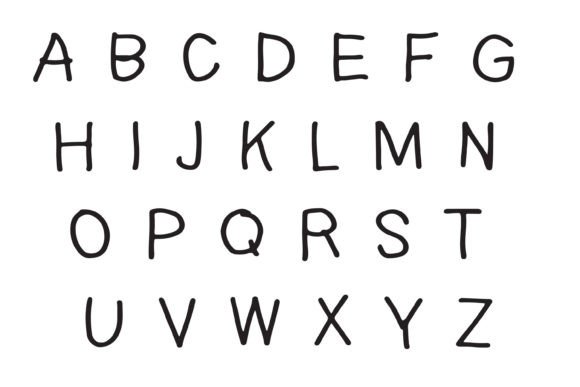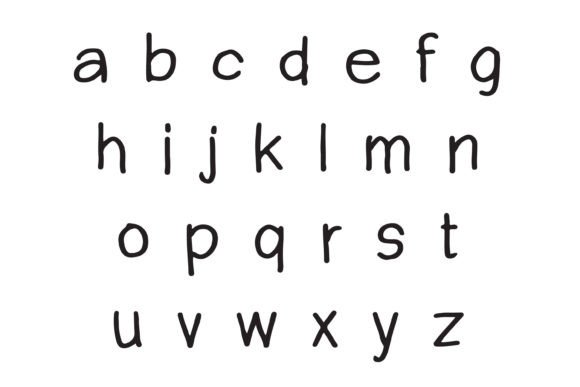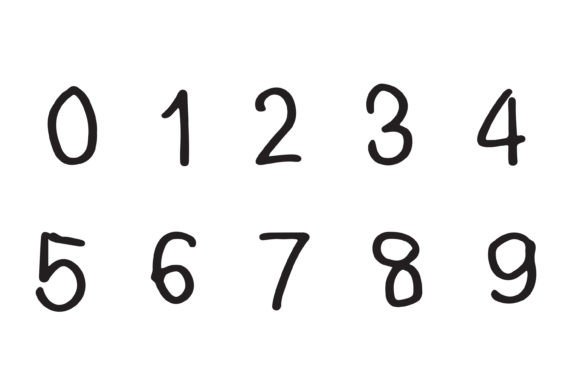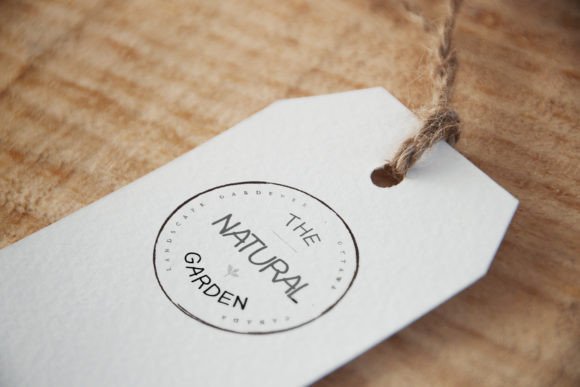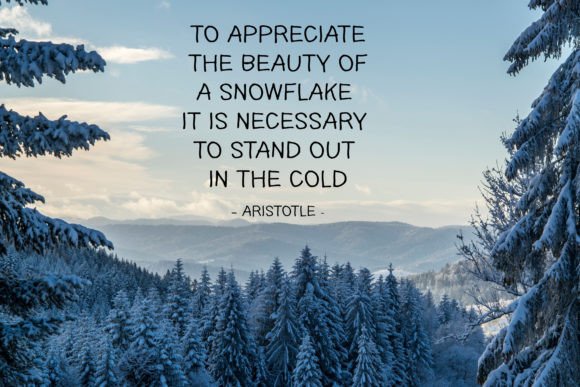
Introduction to Colldy Font
Have you ever been working on a creative project, and the perfect font just slips through your fingers? I know I have. The search for the perfect handwritten font can be a long and arduous one, especially when you’re working on a project with a tight deadline. But what if I told you there’s a font that could make your life easier and your designs stand out? Enter the Colldy Font, a beautiful, high-quality handwritten font that’s perfect for greeting cards, posters, social media, and even quotes on products like mugs or shirts.
The Colldy Font is a valuable resource for designers, offering a free download that’s easy to use and customize. With its transparent background, you can easily layer it over other design elements or use it as a standalone font. Whether you’re working on a personal project or a client’s design, the Colldy Font is sure to bring a touch of personality and whimsy to your work.
Key Features of Colldy Font
- High-quality design resource with a unique and creative aesthetic, perfect for any project.
- Includes a range of weights and styles, providing flexibility for designers to customize their creative project.
Honest Review: Colldy Font
As a designer, I’m always on the lookout for high-quality design resources that can elevate my creative projects. Recently, I came across the Colldy Font, which caught my attention with its unique and modern design.
What works well with the Colldy Font is its versatility. It’s a great option for designers who want to add a touch of sophistication to their designs. The font is available for free download, which is a major plus. Additionally, it features a transparent background, making it easy to use with different design elements.
- ✨ Unique and modern design
- ✨ Versatile and suitable for various design projects
However, there are some limitations to consider. The font may not be suitable for projects that require a more traditional or classic look. Additionally, the font’s design may not be as polished as some other high-end fonts on the market.
- ⚠️ May not be suitable for traditional or classic design projects
- ⚠️ May not be as polished as other high-end fonts
Overall, I would recommend the Colldy Font for designers who want a modern and versatile font for their creative projects. While it may have some limitations, its unique design and free download make it a valuable design resource.
The Colldy Font is ideal for creative projects that require a modern and elegant look. Use it for logos, branding materials, or any design that requires a high-quality font with a transparent background.